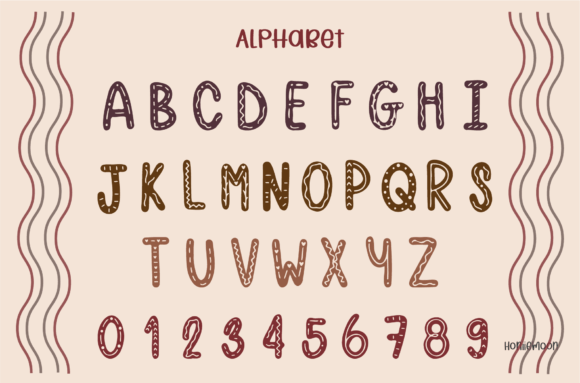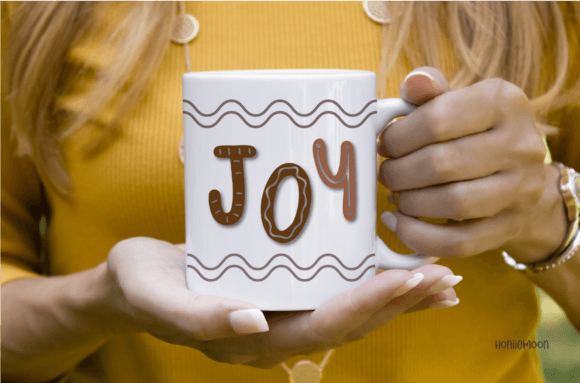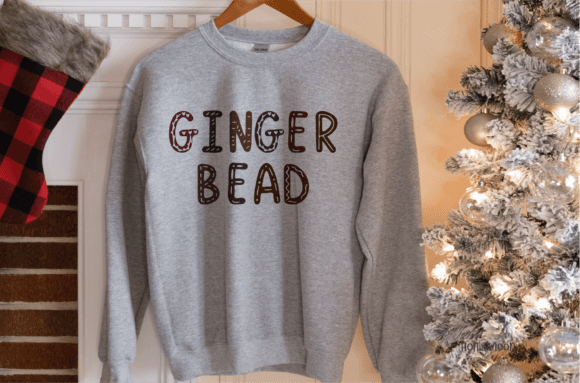
Gingerbread Font: Add a Touch of Magic to Your Designs
Have you ever stared at a blank page, trying to spark some creativity? Maybe you’re brainstorming ideas for a festive holiday campaign or a fun children’s book. Suddenly, a spark of inspiration hits you – and you can almost smell the sweet aroma of freshly baked cookies. That’s the magic of Gingerbread Font, a display font that brings a smile to your face and adds a playful touch to your designs.
As a designer, you know how crucial it is to have the right tools at your disposal. The Gingerbread Font is more than just a pretty face – it’s a versatile and bold display font that can elevate your creative ideas and make them come alive. With its colorful and whimsical feel, this font is perfect for adding a touch of fun and personality to your designs.
Gingerbread Font Key Features
- Font Family: Gingerbread is a modern sans-serif font family designed for digital use.
- Character Set: Supports a wide range of languages, including Latin, Cyrillic, and Greek alphabets.
- Unique Characteristics: Features a unique blend of geometric and organic shapes, resulting in a friendly and approachable design aesthetic.
- Font Pairing: Designed to work well with a variety of font families, including serif and script fonts, for a cohesive and harmonious design.
Gingerbread Font Review
At first glance, the Gingerbread Font caught my eye with its whimsical, playful feel ✨. The font’s rustic charm and charming illustrations evoke a sense of nostalgia and warmth, perfect for projects that need a touch of sweetness. The font’s versatility is another major plus, as it can be used for a variety of applications, from baking-themed designs to children’s books and even holiday cards.
Here are some of the things that work well with the Gingerbread Font:
- ✨ Unique and eye-catching illustrations that add a personal touch
- ✨ Wide range of applications, from baking to children’s content
- ✨ Good for creating a whimsical and playful atmosphere
- ⚠️ Limited font styles and weights, which may not be suitable for all projects
- ⚠️ May not be the best choice for formal or professional content
Overall, the Gingerbread Font is a great choice for projects that need a playful, whimsical touch. While it may have some limitations, its unique charm and versatility make it a standout font that’s sure to add some personality to your designs.
Tip: Use the Gingerbread font to create festive holiday designs, such as greeting cards and party invitations.
Tip: Use the Gingerbread font to create custom holiday graphics and illustrations.
Tip: Use the Gingerbread font to create custom holiday presentations and documents.
The Gingerbread font is ideal for creating festive and playful designs for:
- Holiday greeting cards
- Party invitations
- Custom holiday graphics
- Festive social media posts